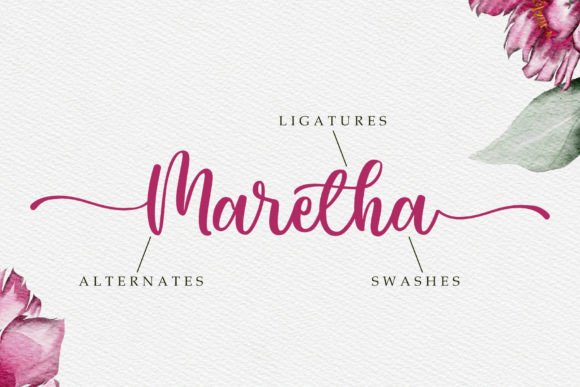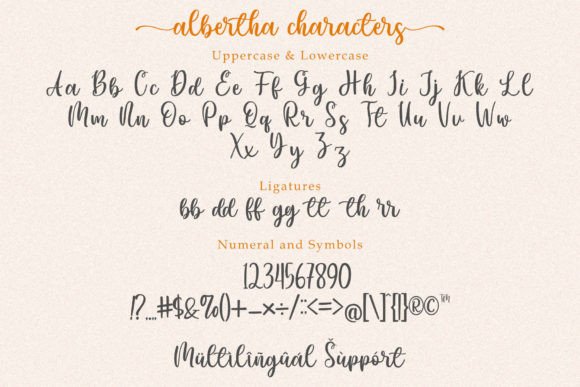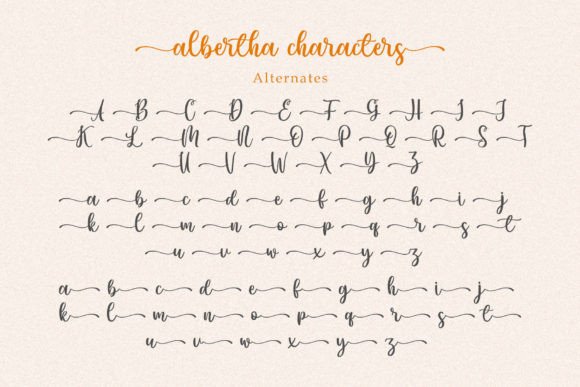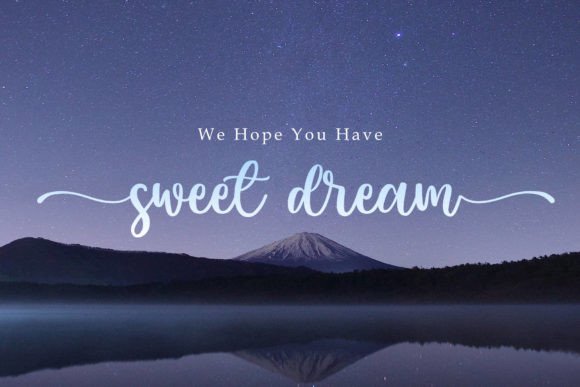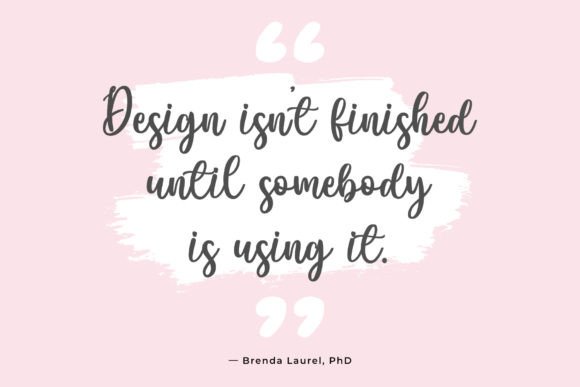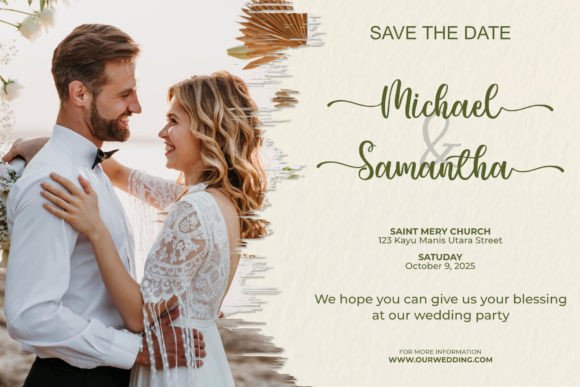
Discover the Magic of Handwritten Beauty
Have you ever sat down with a pen and paper, letting your creativity flow onto the page? The sound of the pen gliding across the paper, the feeling of the ink flowing onto the page… it’s a moment of pure bliss. For designers, this feeling is what drives us to create something truly special. And that’s exactly what the Albertha Font is all about.
This stunning modern calligraphy font is designed to capture the essence of handwritten beauty. With its smooth curves, delicate details, and elegant swashes, Albertha Font is perfect for adding a touch of luxury and class to your designs. Whether you’re working on a wedding invitation, a logo, or a social media post, this font is sure to impress. Its ease of use and customization make it a valuable tool for designers, allowing you to create unique and personalized designs with ease.
Albertha Font Key Features
- Font Family: Albertha
- Font Style: Script
- Font Size: 1,012 glyphs
- Unique Characteristics:
- Hand-drawn design with a personal touch
- Supports multiple languages, including Latin-based languages and Cyrillic
- Resolution: High-resolution fonts for crisp and clear display
Albertha Font Review
Albertha Font is a beautiful script font that I’ve had the pleasure of working with. ✨ One of the things that stands out to me is its elegant and refined aesthetic, making it perfect for projects that require a touch of sophistication. The font’s unique character forms and subtle flair give it a distinctive look that’s sure to catch the eye.
Another thing I appreciate about Albertha is its versatility. ✨ It’s suitable for a wide range of applications, from titles and headings to body text and even logos. The font’s high legibility also makes it a great choice for long blocks of text, ensuring that your message gets across clearly.
- ⚠️ Limited language support: Albertha Font may not support some non-Latin scripts, which could be a concern for projects that require multilingual support.
- ⚠️ Not suitable for very small text sizes: Due to its decorative nature, Albertha Font may become difficult to read at very small text sizes, making it less suitable for projects that require a lot of fine print.
Overall, I’m impressed with Albertha Font’s design and versatility. While it may have some limitations, it’s a great choice for projects that require a touch of elegance and sophistication. With the right use case, Albertha Font can add a beautiful and refined touch to your design.
Tips for Getting the Most Out of Albertha Font
Use Albertha Font in combination with other elegant fonts to create a harmonious design. Experiment with different font sizes, colors, and styles to add depth and interest to your design. Avoid using Albertha Font in small text sizes, as it may be difficult to read.
Albertha Font is perfect for:
– Invitations and event materials
– Business cards and stationery
– Social media graphics and ads
– Logos and branding materials
– Presentations and reports
Alternatives to Albertha Font for Designers
Carolyna Pro Font is a high-end script font designed by Laura Worthington. It’s ideal for luxury brands, high-end fashion, and premium products. Compared to Albertha Font, Carolyna Pro Font has a more refined and polished look, making it perfect for designers who want to create a sense of exclusivity and sophistication in their designs.
Alex Brush Font is a beautiful, handwritten font designed by Pizzazz Type Foundry. It’s perfect for creating a warm and inviting atmosphere in designs such as food packaging, restaurant menus, and craft beer labels. Compared to Albertha Font, Alex Brush Font has a more relaxed and casual feel, making it ideal for designers who want to add a touch of personality and charm to their work.